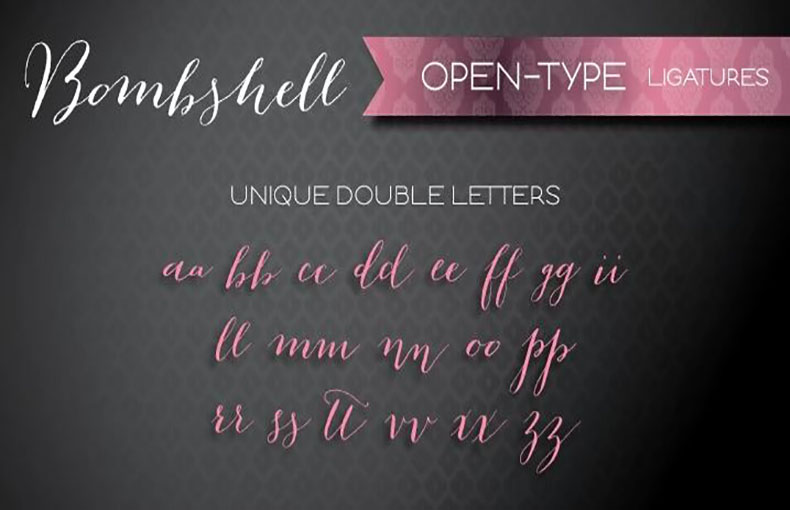
Bombshell Pro is a set of 2 hand-made marker pen fonts. However, it is known with features like versatile, elegant. Bombshell Pro Introducing '' by Emily Conners - the latest addition to the font world that will leave you in awe.
Bombshell Font is a calligraphy typeface with a natural, hand-drawn feel. The font is available in three weights - light, regular and bold - and features uppercase and lowercase letters, numbers, and punctuation. Bombshell Pro Font Free Download supports multilingual characters, making it versatile for global projects.
Its beautiful script ensures readability, even in intricate compositions, while maintaining its graceful, handwritten style. By downloading Bombshell Pro Font Free Download, you can test how well it fits your personal and creative needs. Bombshell Pro is a passionate hand-calligraphy font that includes long connections between letters so you can create beautiful headings or signature looks.
Open-type version features 800+ glyphs including initial and terminal letters, alternates, roman numerals (III & IV), and "run-on" letter connections.